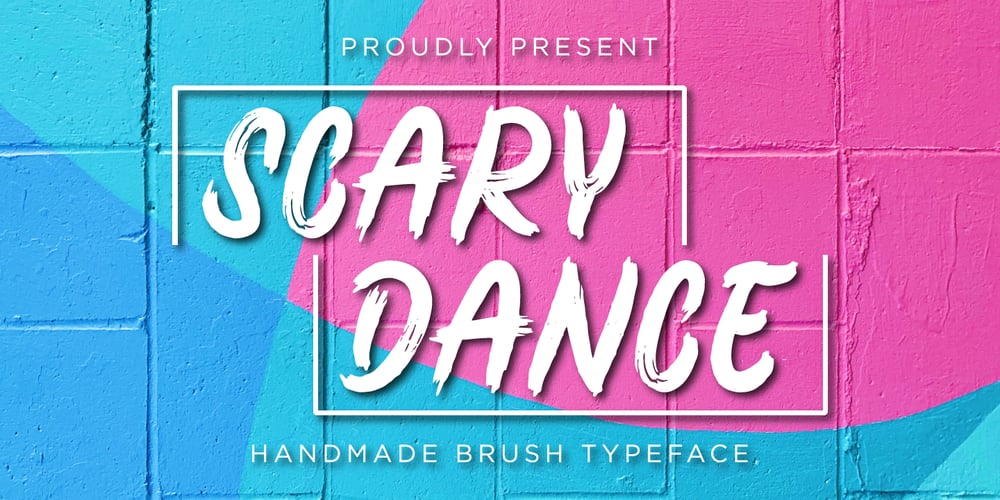
Scary Dance Font Family was designed by Gais Zaelani and published by JprintStudio. Scary Dance contains 1 styles and family package options. The Scary font is a large, very friendly brush font, with a hint of a grainy style. It would be perfect for posters, packaging, advertising, news headlines, branding, signage and anything else you want from an urban look and feel. This font will turn any creative idea into a true work of art!